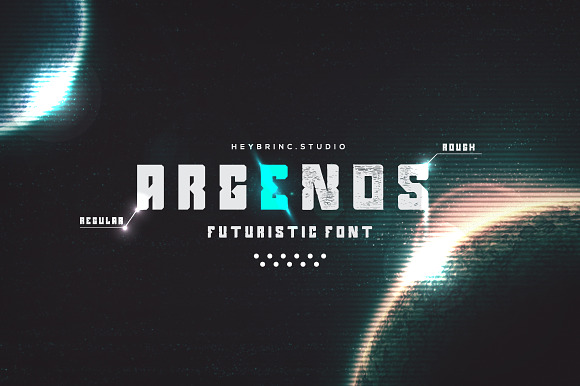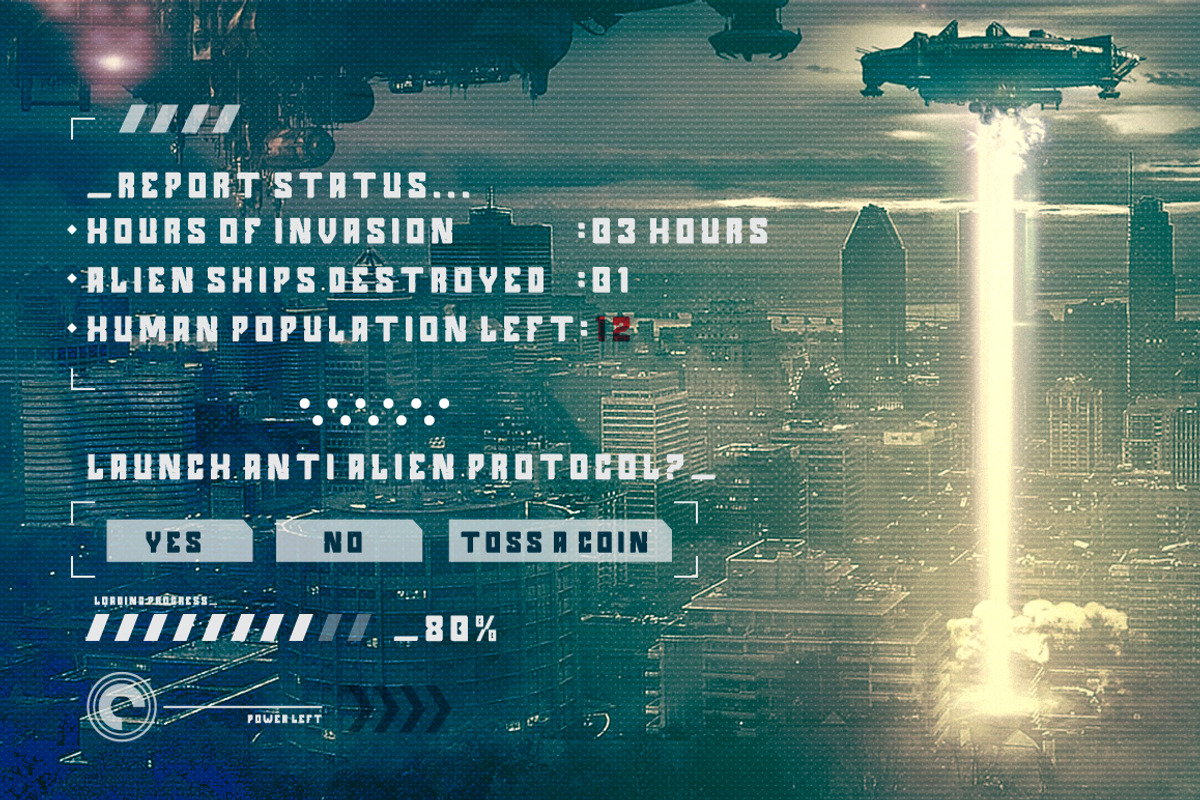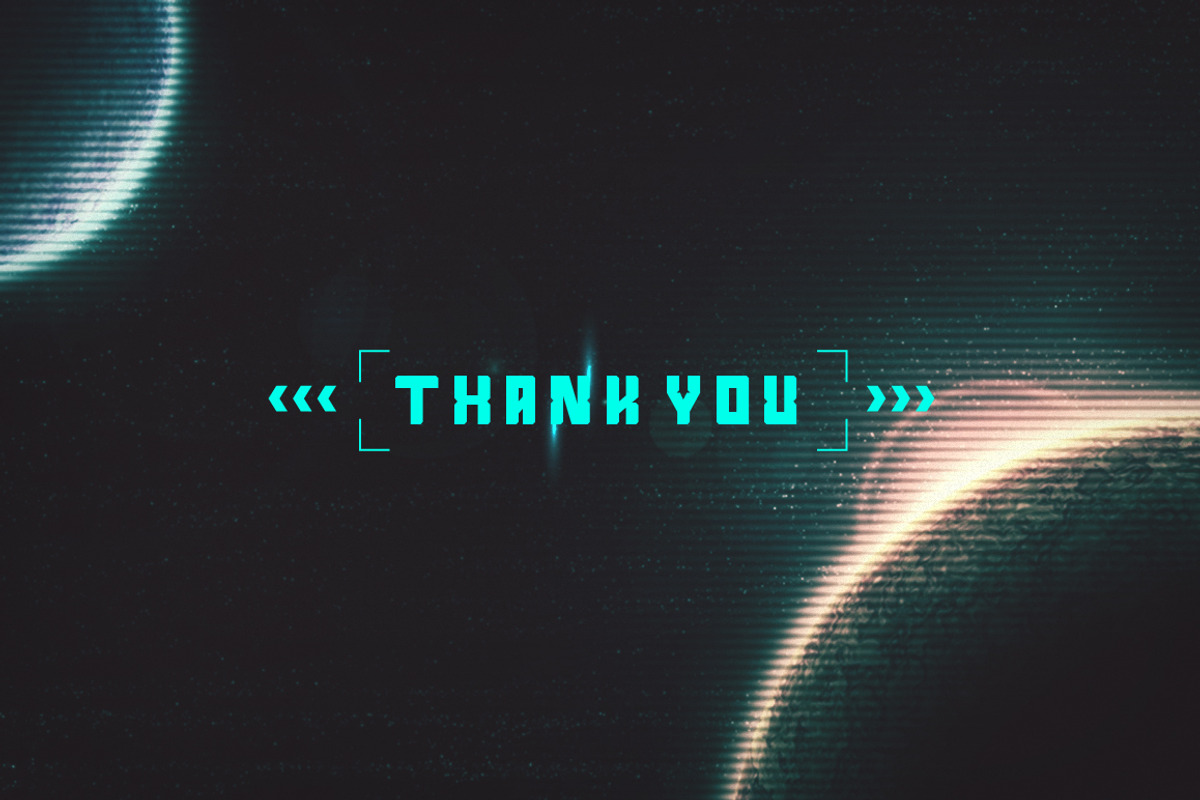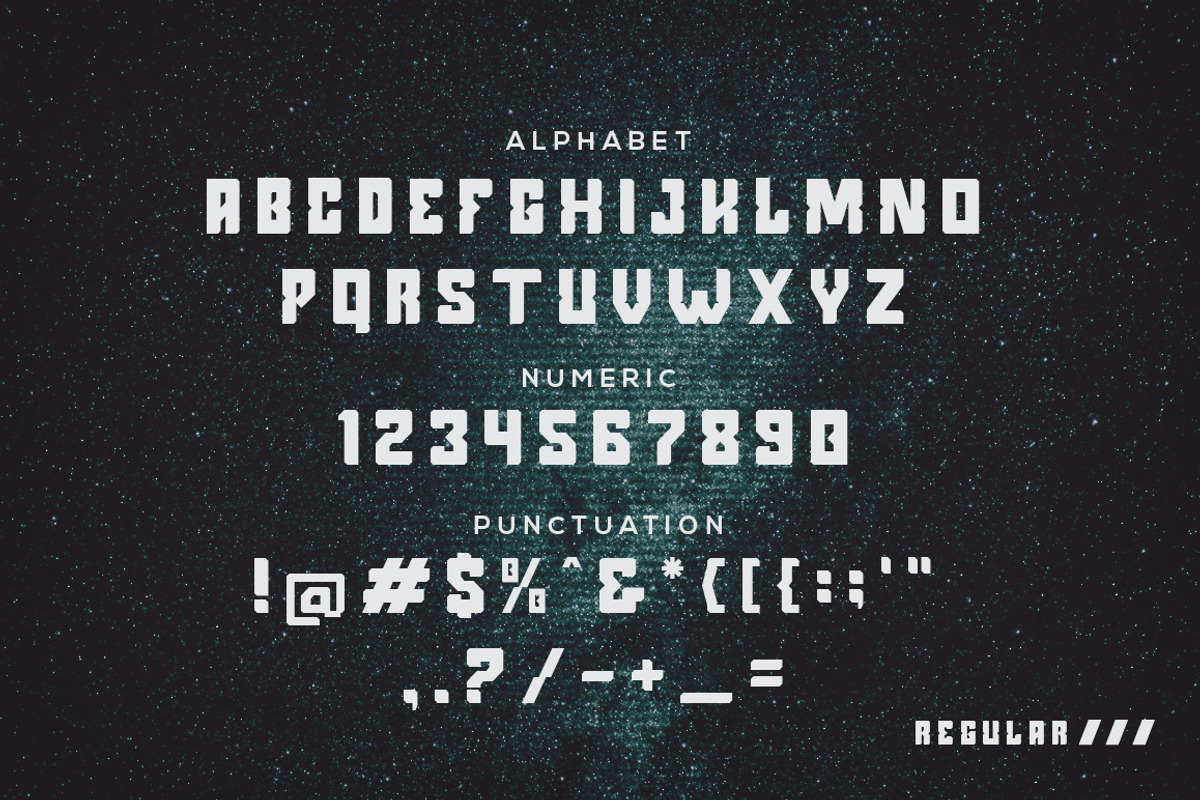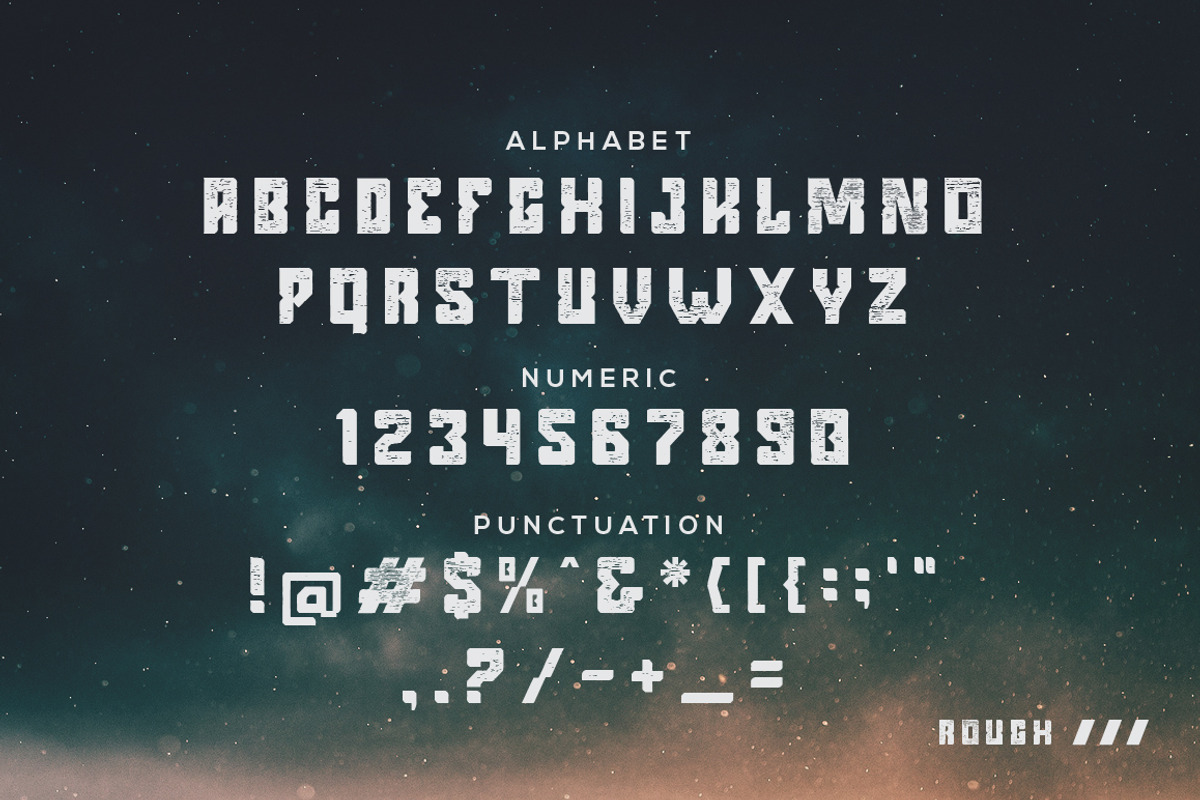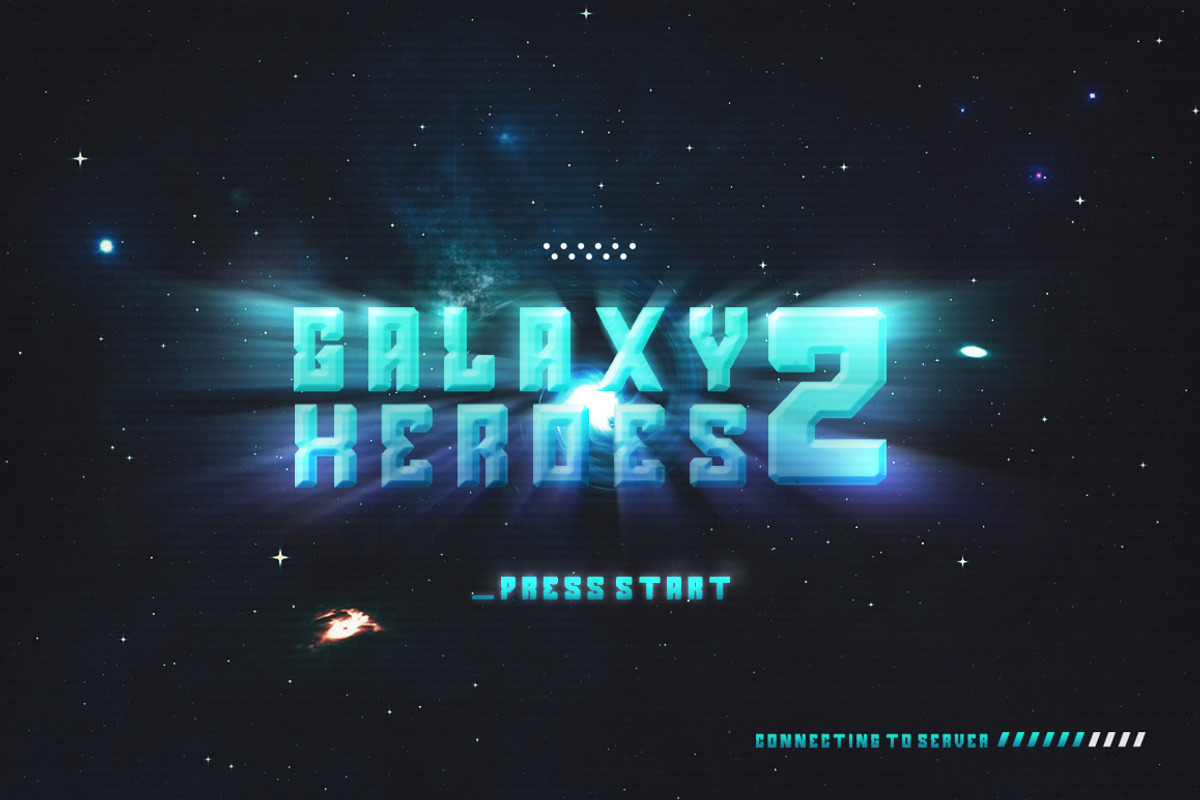
Argenos - Futuristic Font
Argenos is a display font inspired by Science Fiction movies and games. If you're a big fan of Science Fiction theme, this font is perfect for you. Add some metalic texture and 3d effect and you're good to go! Argenos is perfect for movie titles, game titles, posters, flyer, UI, and so on. So, what are you waiting for? Buy now and start playing around with Argenos!